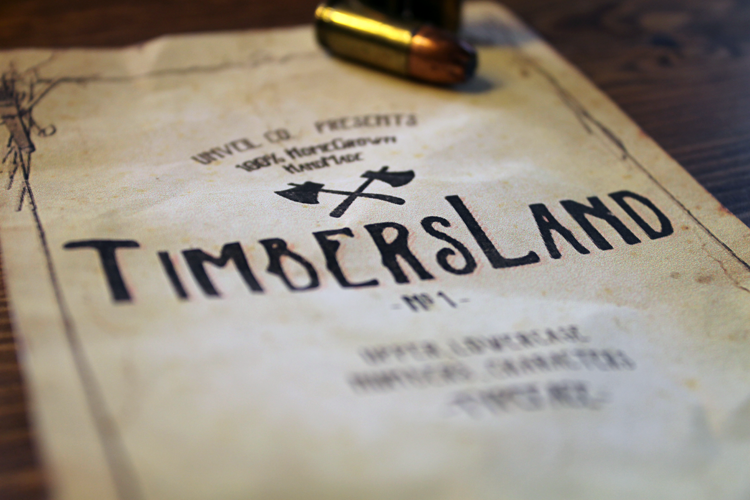
Timbersland Typeface
Introducing Timbersland Typeface -- 100% Homegrown, Handmade/Hand-drawn font.
This typeface is heavy; not for the faint of heart -- make a bold statement with Timbersland. With this typeface you can create an outdoorsman/vintage design -- posters, logos, brand names, labels, etc. -- you name it; and it can be done.